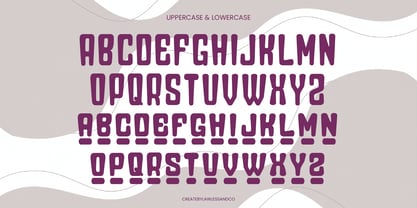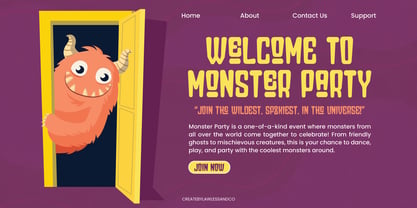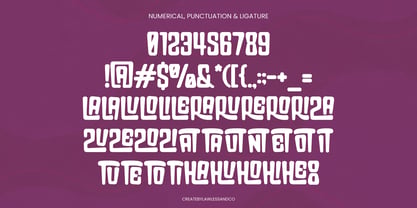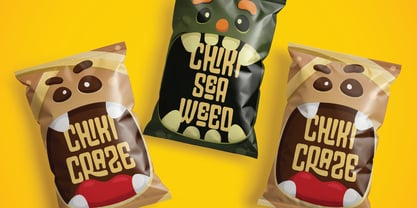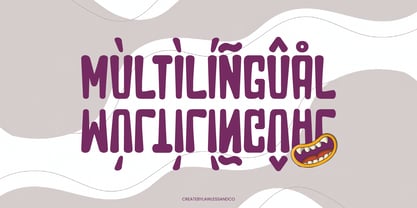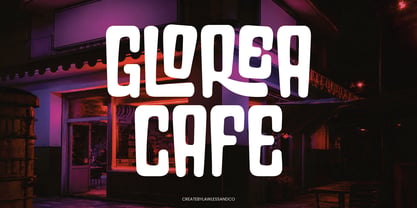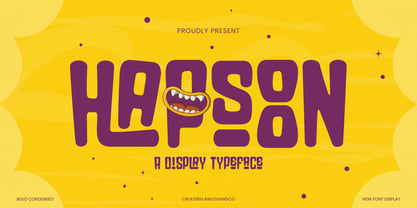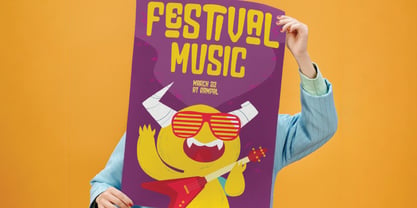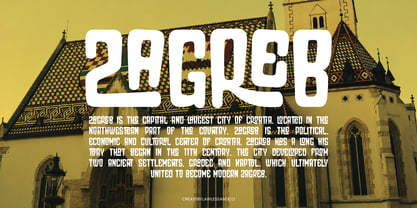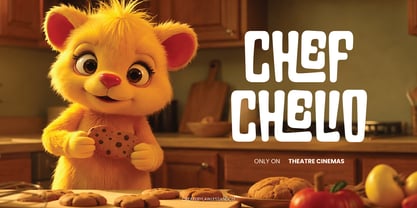
Hapsoon
The Hapsoon Font Family was designed by Achmad Yani and published by Flawlessandco. Hapsoon contains 1 styles. More about this family
Hapsoon is a must-have display typeface for brand creators and designers who want their work to stand out with bold personality and visual punch. With its striking forms and expressive style, Hapsoon is made for attention—perfect for crafting logos, headlines, and packaging that demand to be noticed. Whether you're designing for edgy startups, creative campaigns, or bold personal brands, Hapsoon gives your work a confident, unforgettable voice that breaks through the noise.
Features :
Multilingual, Uppercase alphabet A-Z, Lowercase alphabet a-z, Numbers 0-9, Some punctuation, Alternates & Ligatures